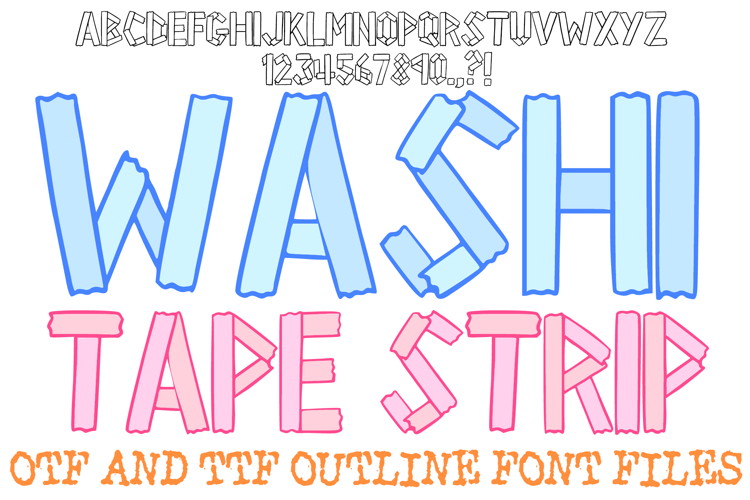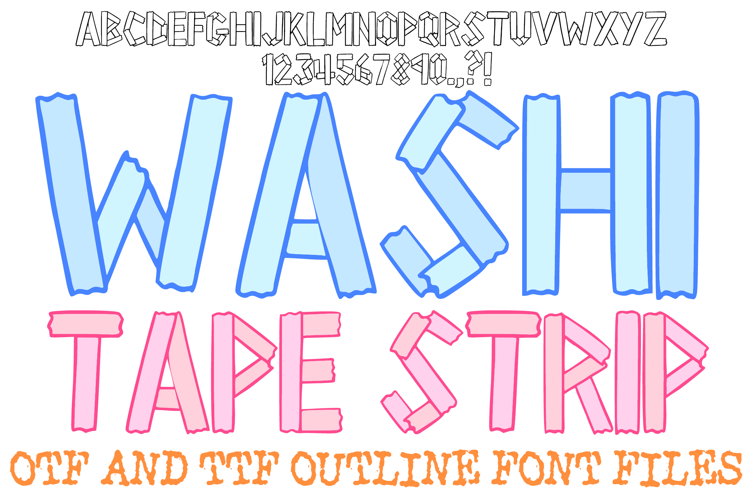
Washi Tape Strip Font Scrapbook Torn Typography Lettering
Bring a clean, modern "stuck-on" aesthetic to your digital projects with the Washi Tape Strip Font! This hand-drawn display alphabet features bold characters uniquely constructed from overlapping strips of tape, complete with realistic folded corners and a minimalist outline. It is the perfect choice for digital journaling, modern planner stickers, school projects, and chic craft-themed branding.
Unlike distressed or torn versions, this font offers a sleek, clean-cut look that maintains high legibility while still capturing the playful "DIY" soul of washi tape. Whether you are creating social media headers, personalized gift tags, or classroom decor, the Washi Tape Strip Font provides a tidy and creative foundation for your text.
Why You’ll Love This Style:
Minimalist Tape Aesthetic: Every letter is built from clean-edged strips for a modern, uncluttered look.
Realistic Folded Details: Features charming "folded-over" corners that give the letters a sense of depth and realism.
High Versatility: Works beautifully for both playful children's designs and sophisticated, minimalist stationery.